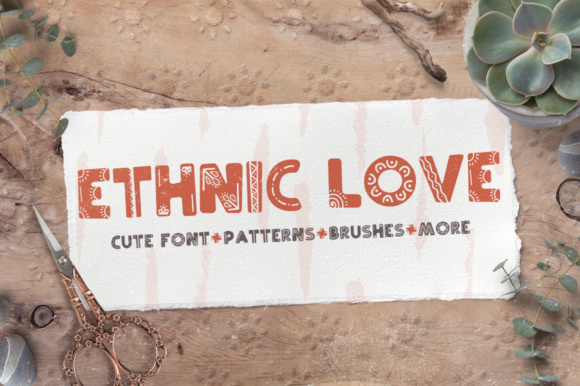
Ethnic Love Font
Experience the captivating allure of Ethnic Love Font, a display font family brimming with personality and charm. Immerse yourself in the world of exquisite patterns, breathtaking illustrator brushes compatible with Illustrator CC+, and an enthralling collection of decorative circles, all designed to elevate your creative projects to new heights.
Indulge in the font's mesmerizing embrace as it weaves its magic, transforming your designs into captivating masterpieces. Let the intricate patterns ignite your imagination, allowing your creativity to flourish like never before. With Ethnic Love Font, the possibilities are boundless, limited only by the depths of your artistic vision.
Unleash your inner artist and let the Ethnic Love Font guide you on an extraordinary journey of self-expression. Its enchanting aura will infuse your designs with a touch of allure, captivating the hearts and minds of your audience. Embrace the font's captivating essence and watch as your designs blossom into works of art that resonate with emotion and authenticity.
Elevate your designs to the next level with Ethnic Love Font. Its captivating beauty will leave an everlasting impression, ensuring your projects stand out from the ordinary. Discover the power of a font that transcends mere aesthetics, becoming an integral part of your creative narrative. Embrace Ethnic Love Font today and unlock the gateway to a world of artistic enchantment.